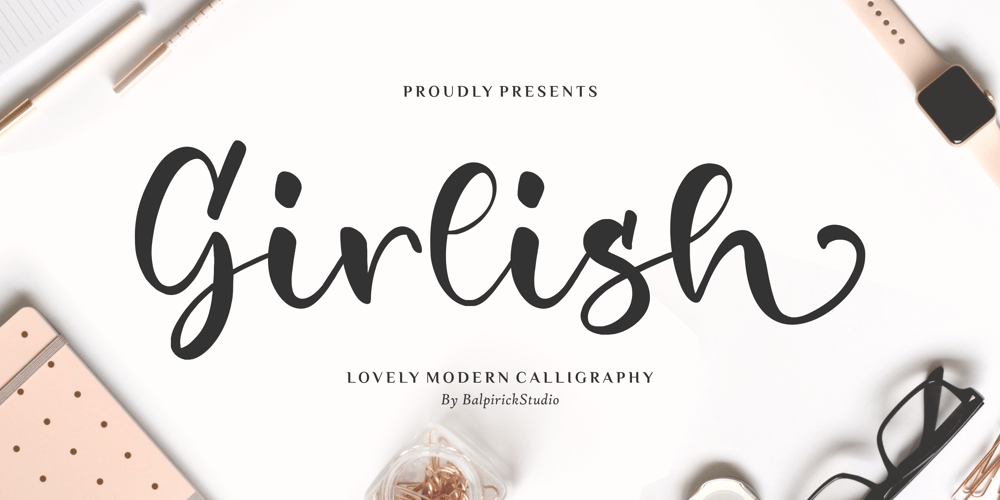
Girlish Font Family was designed by Restu Angga and published by Balpirick. Girlish contains 1 styles and family package options. Girlish is a Lovely Modern Calligraphy Font.Girlish is perfect for product packaging, branding project, megazine, social media, wedding, or just used to express words above the background.Girlish also multilingual support.Lowercase font Stylistic Alternates Ligatures Symbols & Punctuation OpenType Features.Enjoy the font, feel free to comment or feedback, send me PM or email.Thank you!